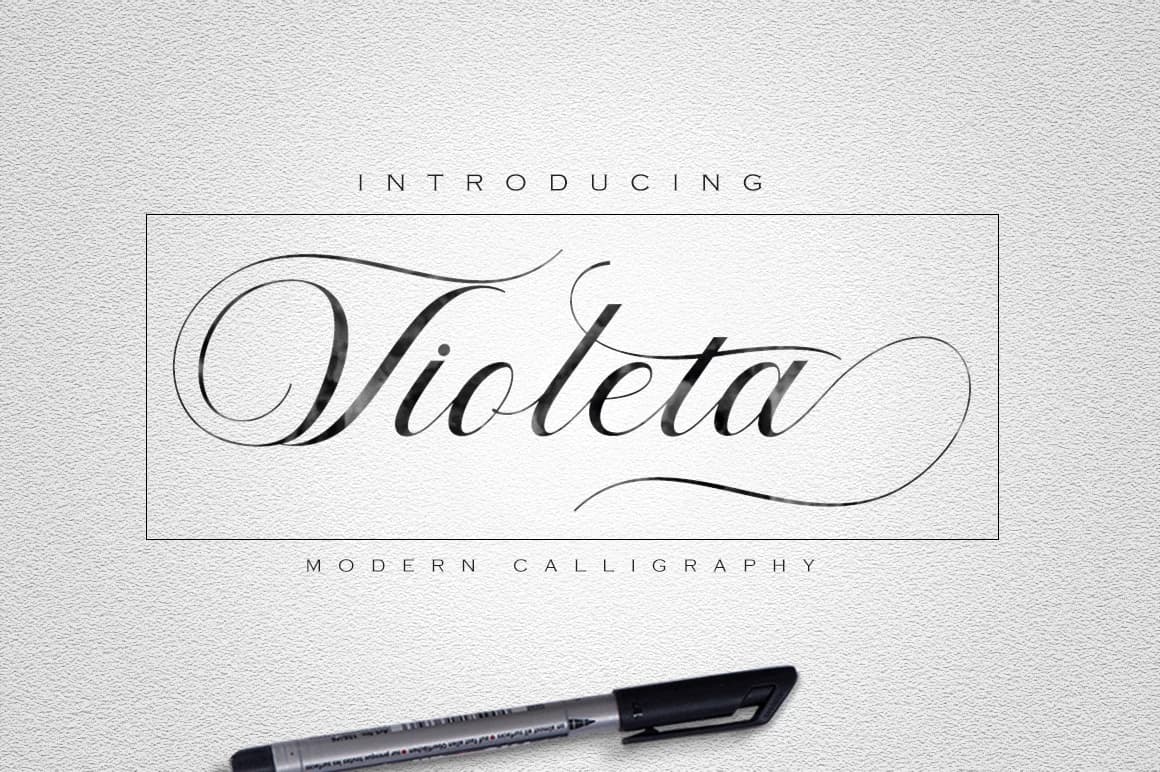
Violeta by varianskills is a contemporary calligraphy script that masterfully bridges classical penmanship traditions with modern design sensibilities. The typeface captures the fluid elegance of hand-drawn letterforms while maintaining clean, readable construction ideal for both digital and print applications. This font features 500 unique hand-drawn glyphs complemented by an extensive collection of alternate characters, offering remarkable design flexibility. Wedding invitation suites benefit from Violeta's refined grace, while the extensive character set supports craft-focused branding projects with visual distinction. Artisanal product packaging, luxury greeting card designs, and bespoke social media graphics all showcase the script's balanced sophistication. The monogram potential alone makes this typeface valuable for personalized branding initiatives where distinctive letterforms communicate quality and attention to detail. The script's balanced proportions work beautifully across various scales, equally compelling at intimate sizing for stationery applications and commercial scales for product labeling. Designers tackling boutique skincare packaging, handmade goods labels, or editorial design projects will find the alternates enable endless customization without requiring font substitutions. The hand-drawn quality maintains authentic, personal character throughout, yet remains professional enough for luxury branding and high-end merchandise applications. Bring Violeta into your creative collection and explore the complete glyph library on Creative Fabrica.
- Elegant, Flowing, Violeta
Violeta Font is a script font that shines as a display or heading face. Pair it with a clean sans-serif or serif font for body text β the contrast creates a clear hierarchy while the two styles stay balanced and easy to read.
Violeta Font